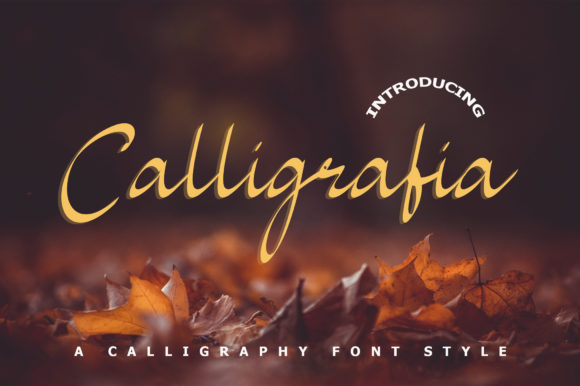
Step into the enchanting world of Calligrafia, a script font family that captures the essence of timeless beauty and elegance. With its delicate swirls, refined curves, and captivating letterforms, Calligrafia is poised to become your go-to choice for crafting enchanting logos, alluring branding, and captivating quotes that leave an unforgettable impression.
Calligrafia's inherent charm is evident in every stroke, its carefully crafted characters exuding a sense of sophistication and grace. Each letter is meticulously designed to evoke a sense of wonder and allure, beckoning you to embrace the art of written expression like never before. Whether you're a seasoned designer or just starting your creative journey, Calligrafia is the perfect font to elevate your artistic vision.
With Calligrafia as your creative companion, you'll discover a boundless world of possibilities. Design wedding invitations that capture the romance and joy of the occasion, create logos that exude professionalism and style, or compose quotes that resonate with your audience, leaving them spellbound by your words. The possibilities are endless, waiting for you to unleash your imagination and transform your creative dreams into a captivating reality.
Beyond its aesthetic appeal, Calligrafia is a versatile font that seamlessly adapts to a wide range of applications. Whether you're working on web design, social media graphics, or print materials, Calligrafia's elegant presence will elevate your designs, captivating your audience and leaving them yearning for more. Experience the magic of Calligrafia today and embark on a creative journey that will redefine your design aesthetic.